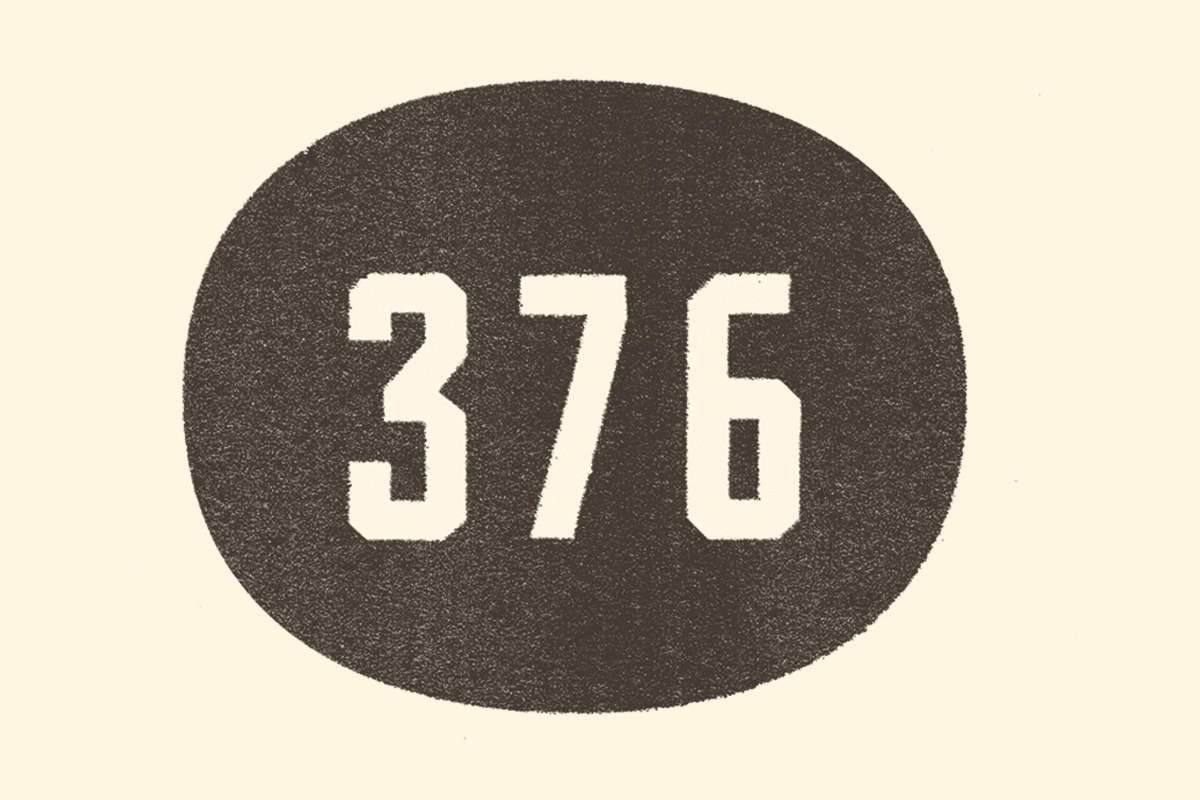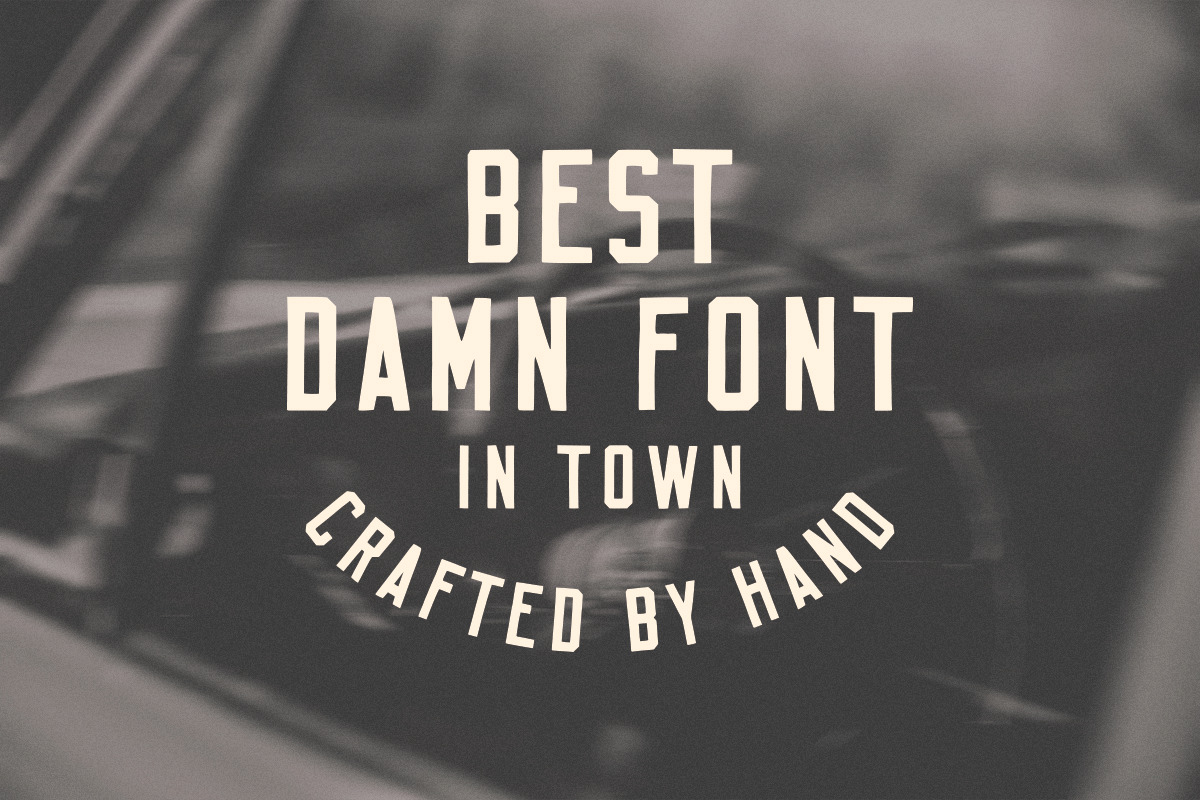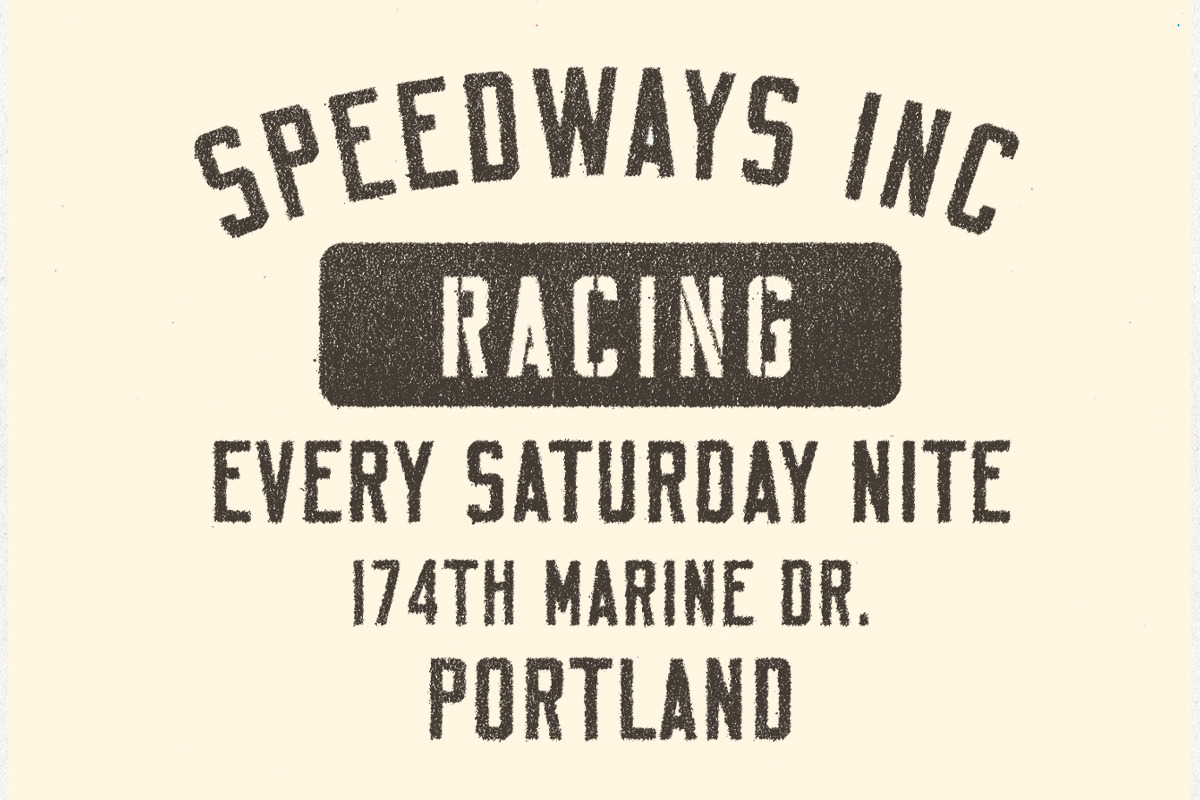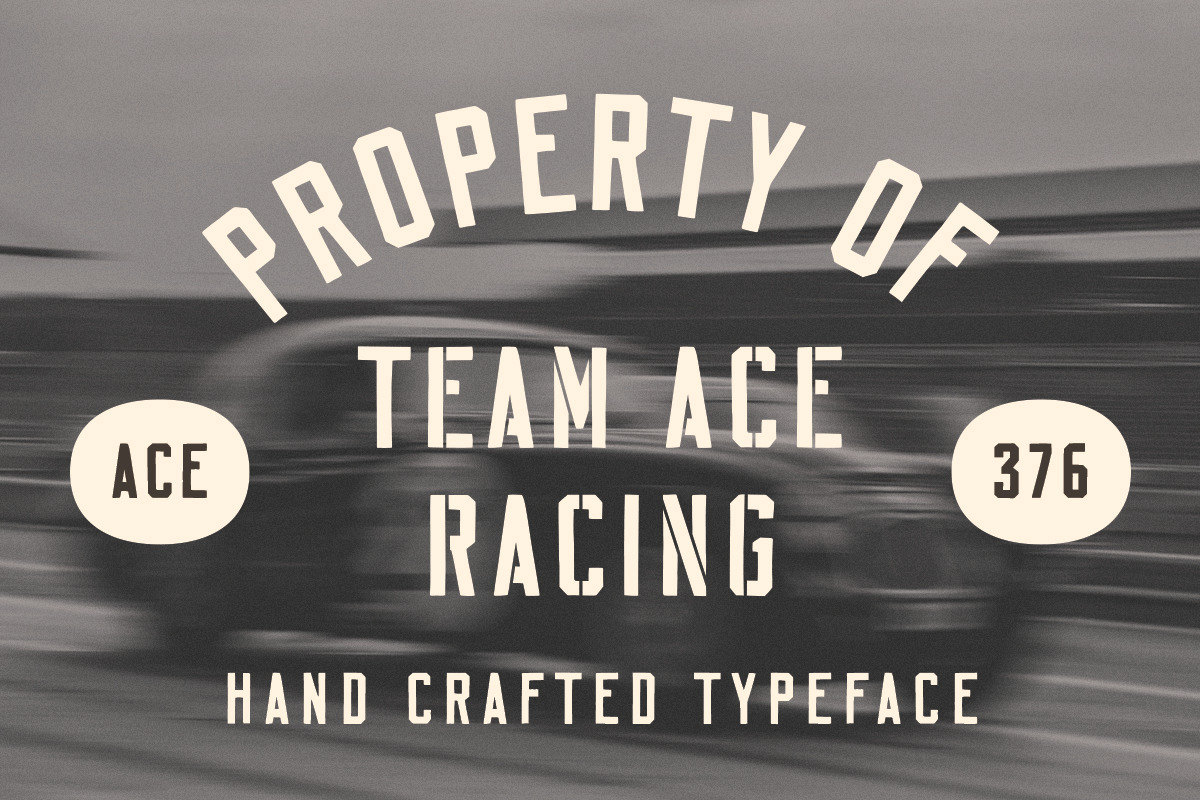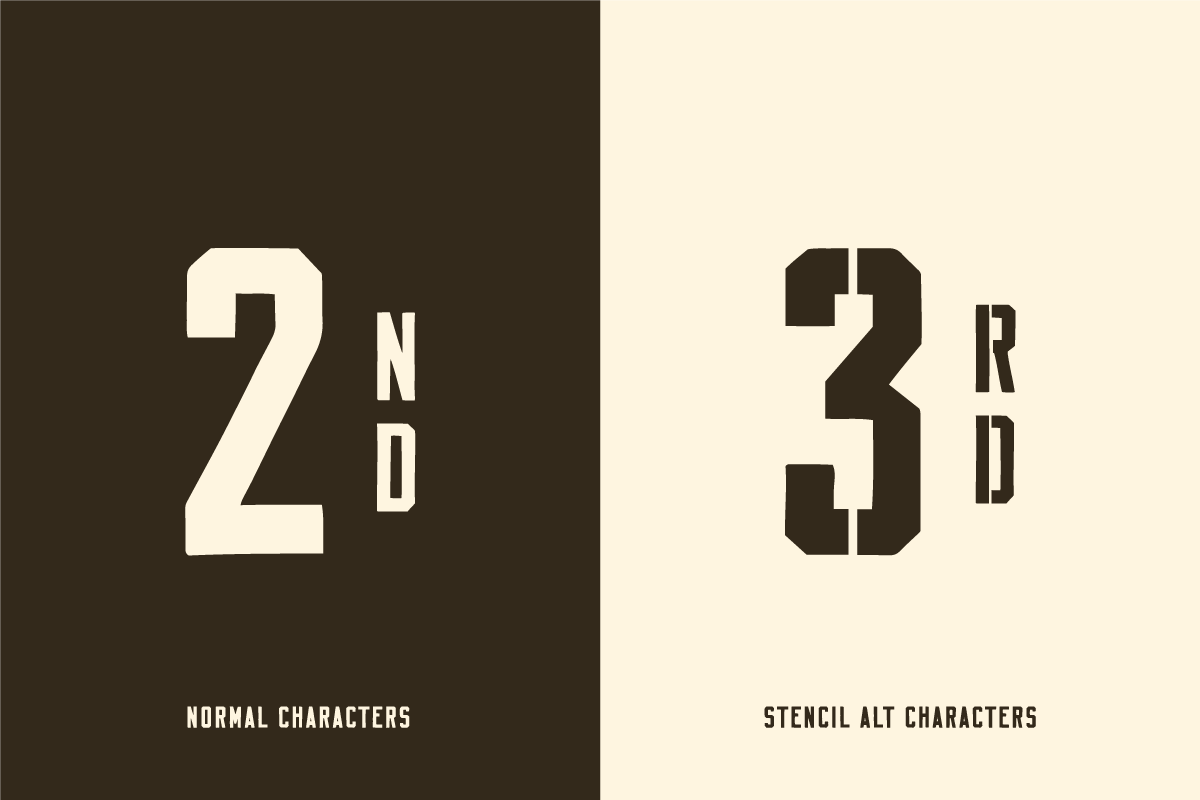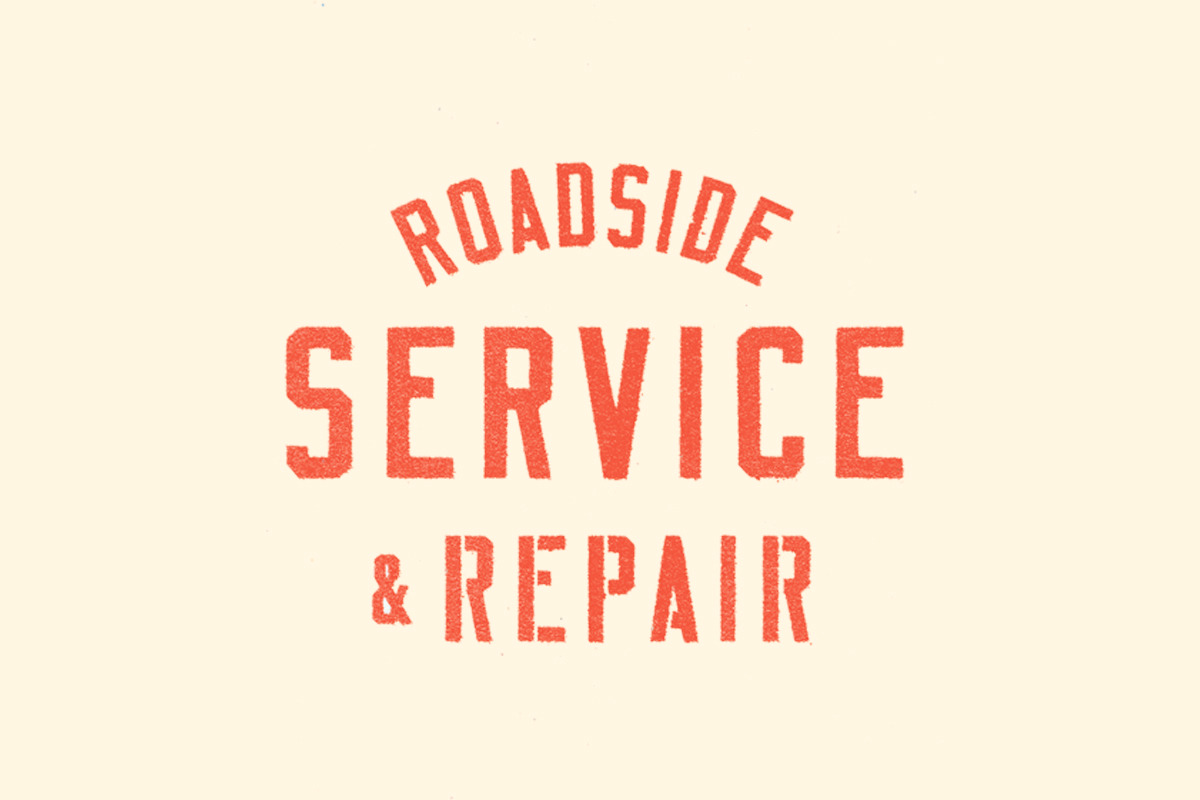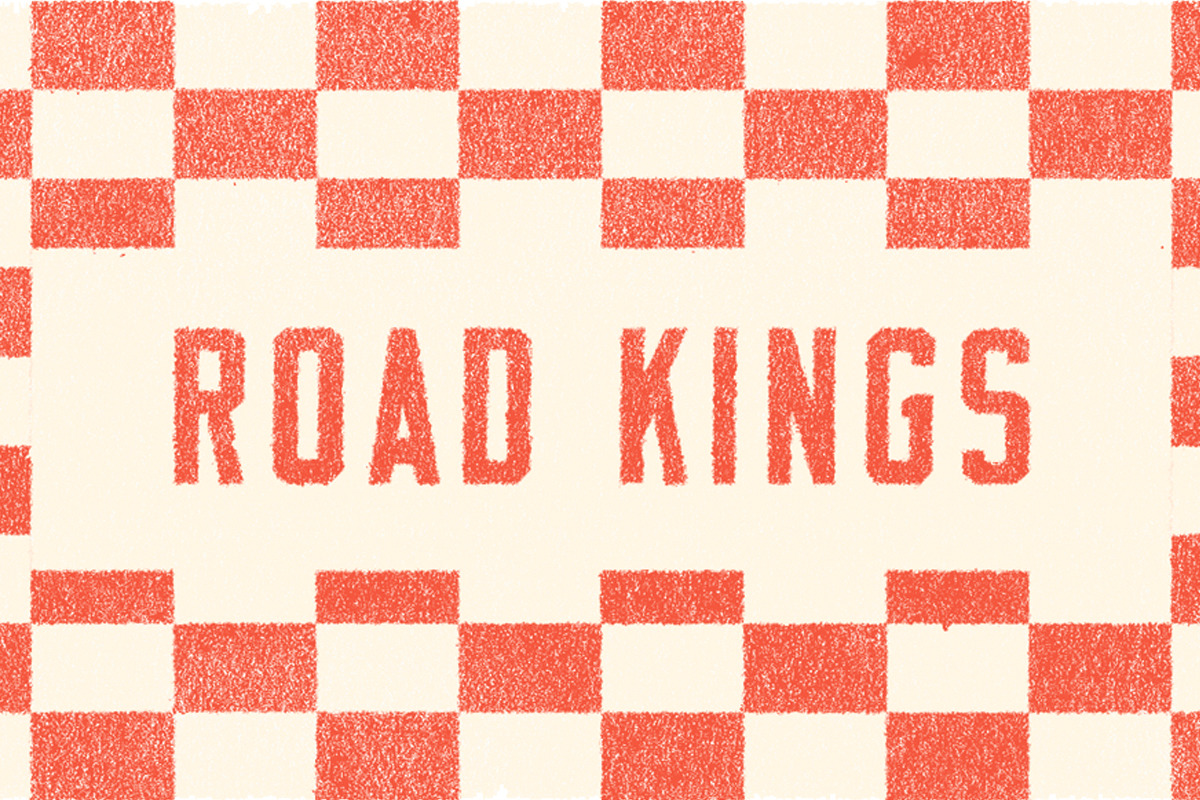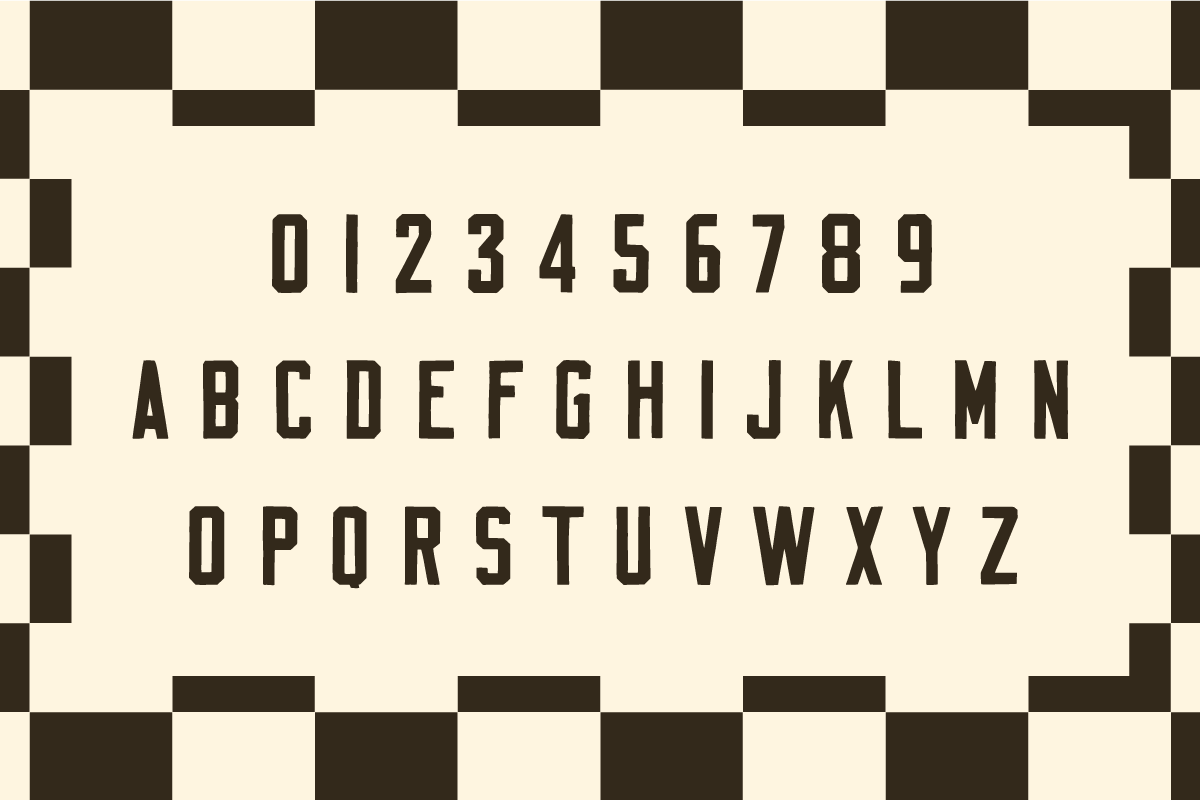
Ace - Racing Font
Here comes Ace: A hand-crafted Sans Serif typeface inspired by the elegance of classic cars and the thrill of vintage motor racing. This unique typeface captures the spirit of a bygone era, reminiscent of a time when racing stripes were hard earned and hand-painted. Ace is the perfect choice for branding projects, identity systems, packaging, and logos that require a distinctive edge and personality.
This versatile typeface includes a complete set of uppercase characters, stencil-style alternate characters, numbers, and punctuation. Whether you're aiming for a retro vibe or a modern twist with a vintage touch, Ace provides the perfect blend of style and speed.